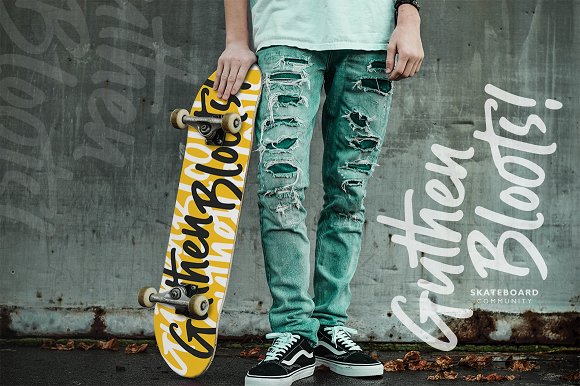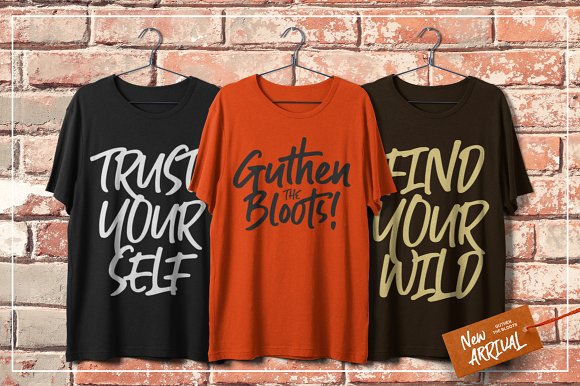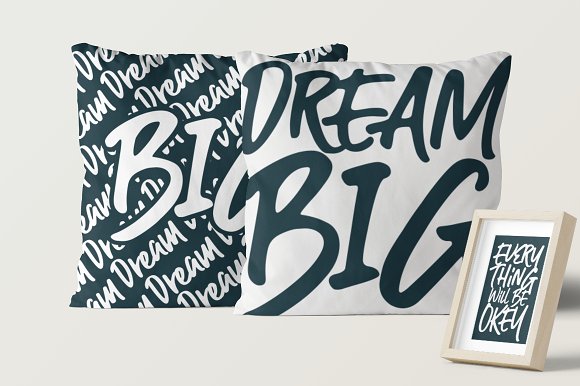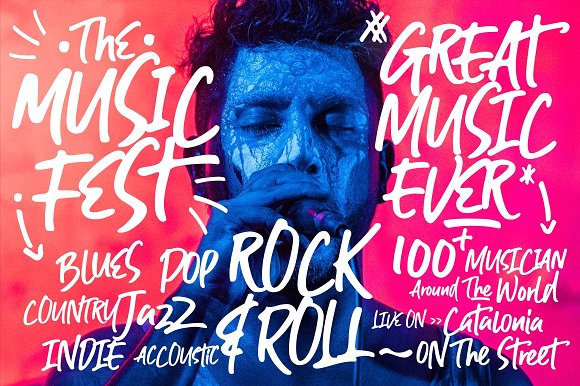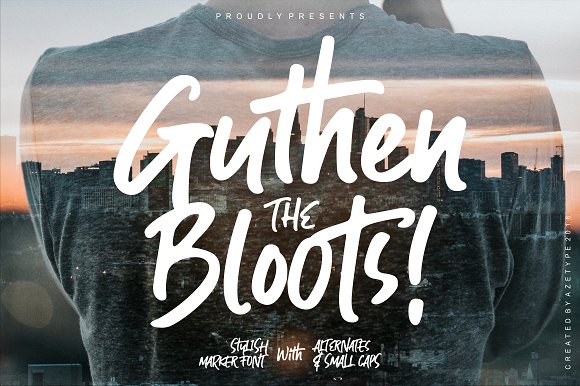
Guthen Bloots Brush Font
A work that is purely a result of handwriting, has a natural characteristic. Introducing Guthen Bloots Font. Guthen Bloots! A Smooth Marker Font with two stylish alternates. This font made with perfect combining of each characters. You can type by mix and match to get a unique combining. It looks original and can be used for all your project needs. Each glyph has its own uniqueness and when meeting with others will provide a dynamic and pleasing proximity. This font can be used at any time and any project. You can see in the presentation picture above, Guthen Bloots looks stylish on design projects.